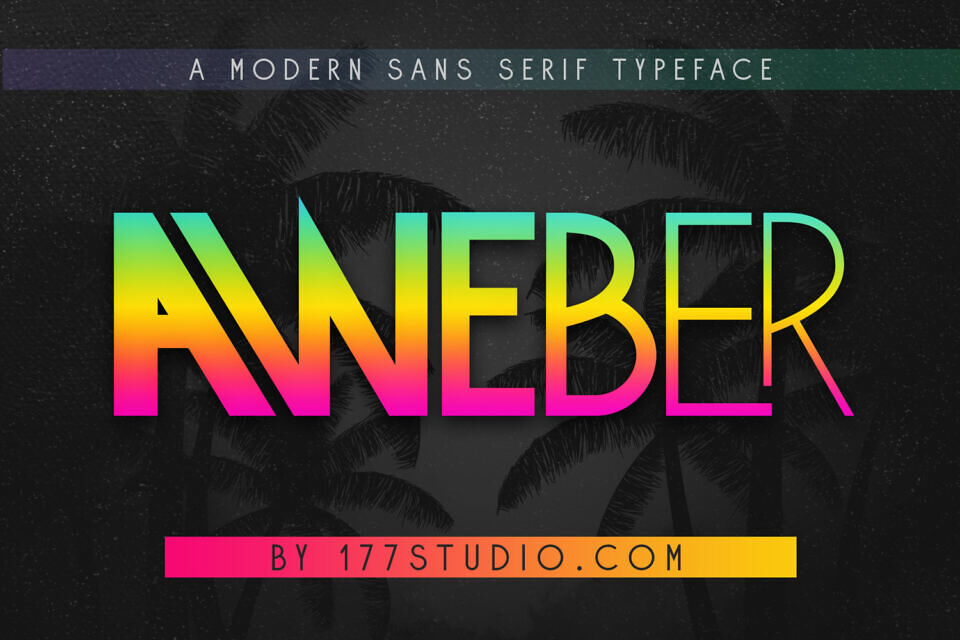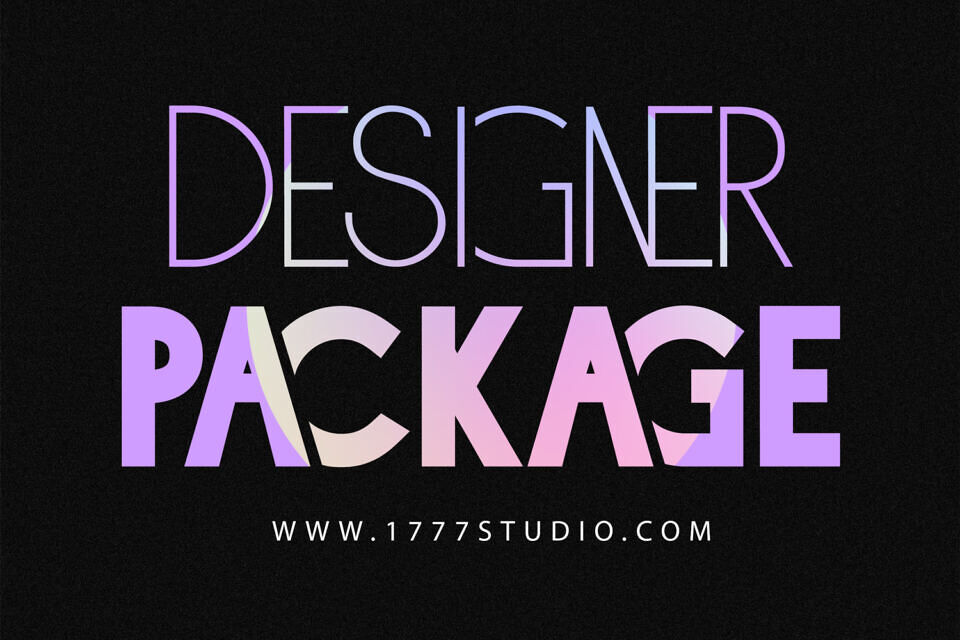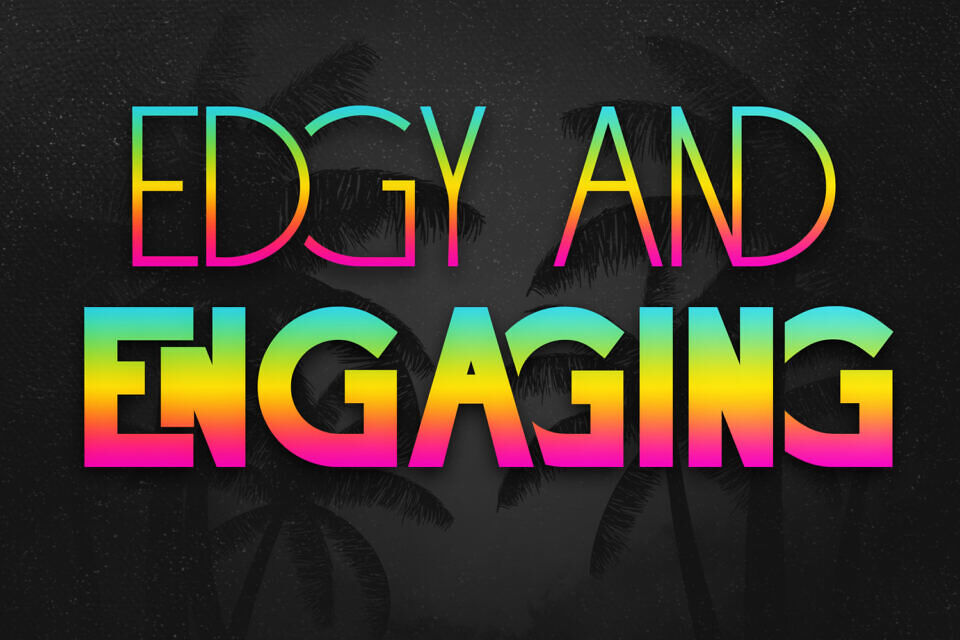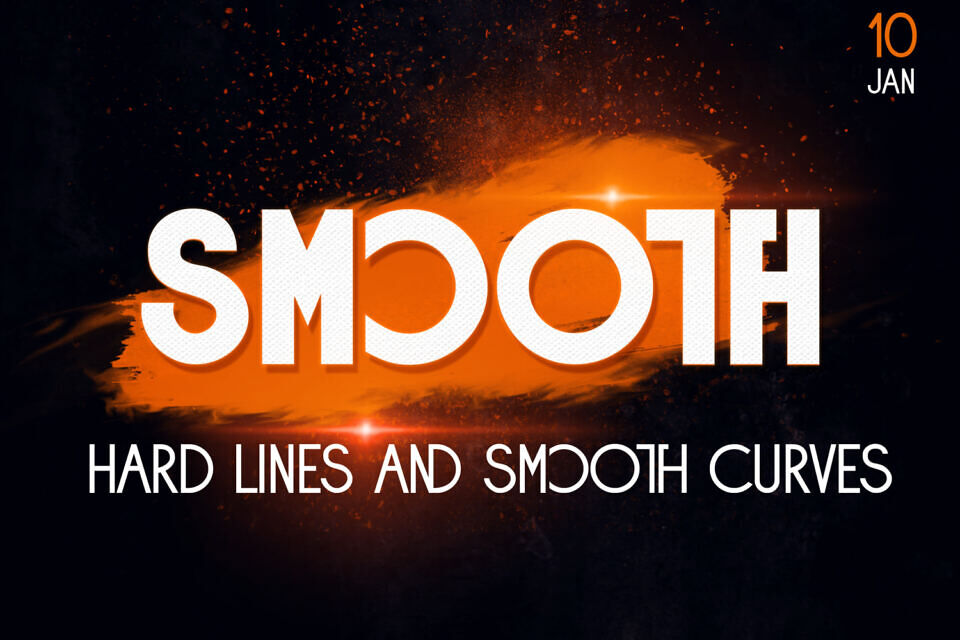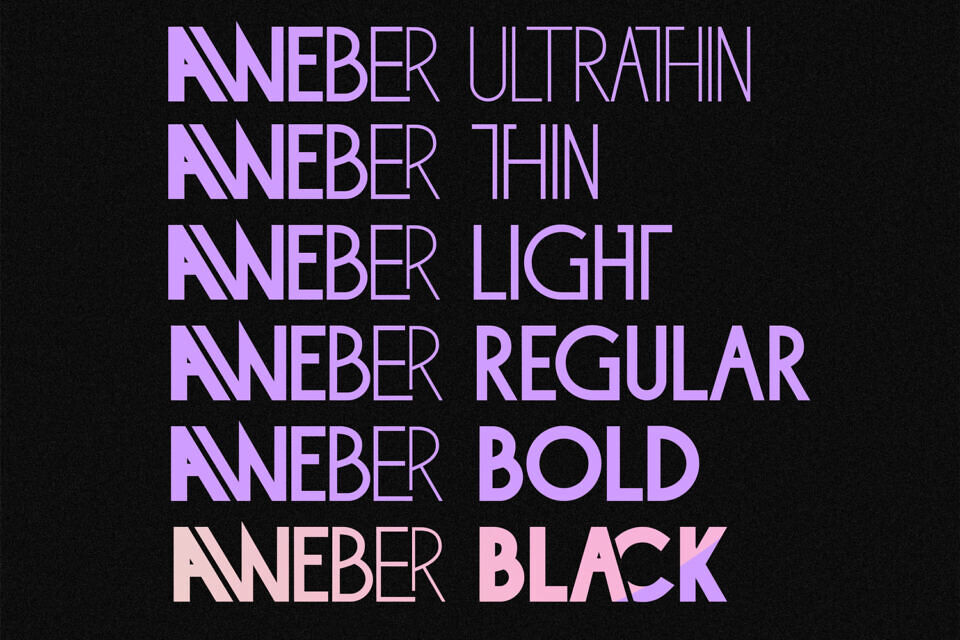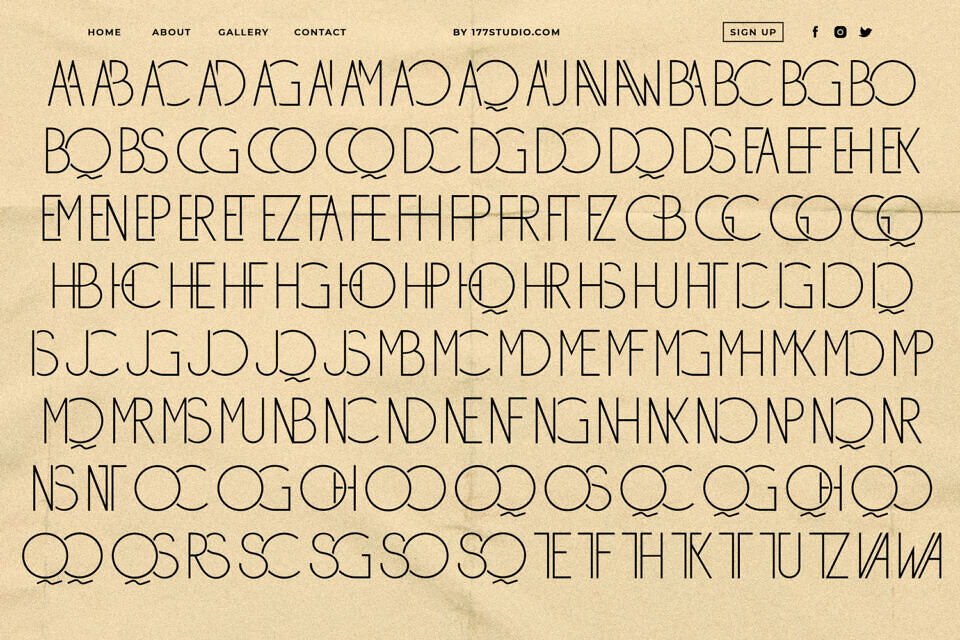
Aweber Font
Aweber Font is a sans-serif font family that is fresh, geometric, and has a modern twist with a grotesk, humanist style. Aweber Font Family is simple but significant, and defined by its crisp edges and modern touches. It is designed for optimal legibility. An all caps sans-serif. The typeface is versatile and can be used successfully in Magazines, Posters, Branding, Websites, etc.